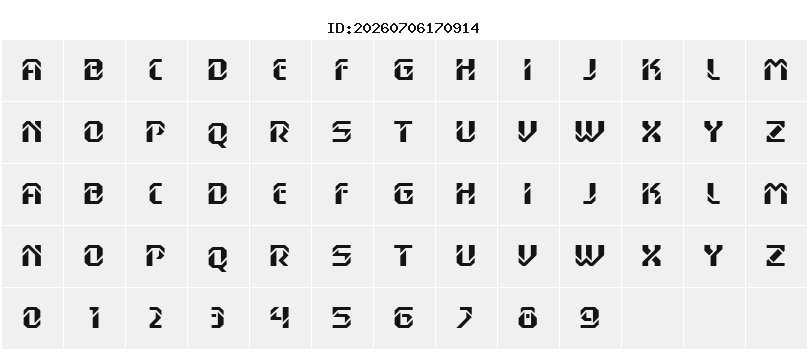
Dex Gothic Becker Preview
• Font Name: Dex Gothic Becker
About Dex Gothic Becker.ttf
Dex Gothic Becker.ttf is a modern, elegant sans-serif font designed for ultimate readability and visual harmony. Perfect for branding, headlines, web design, and print materials.